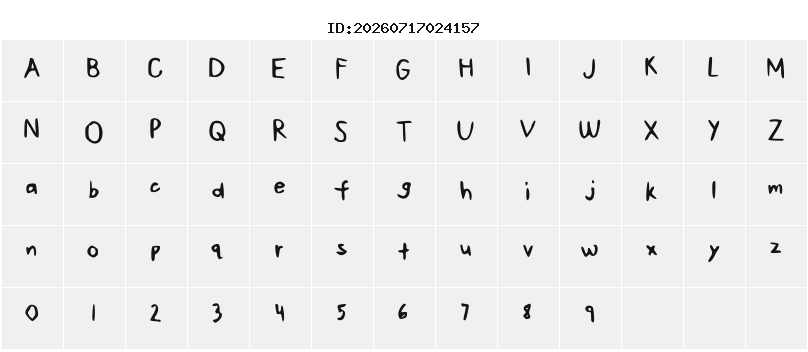
ABetterWorld Preview
• Font Name: ABetterWorld
• Full Font Name: ABetterWorld
About ABetterWorld.ttf
ABetterWorld.ttf is a modern, elegant sans-serif font designed for ultimate readability and visual harmony. Perfect for branding, headlines, web design, and print materials.